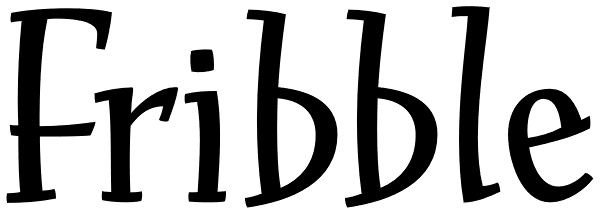
Fribble
Fribble is a delightful, frolicking font that works equally well as text and titling. The open type extras provide additional ‘bounce’ for the font.
Fribble Font